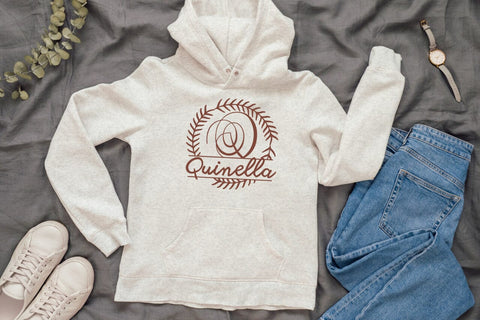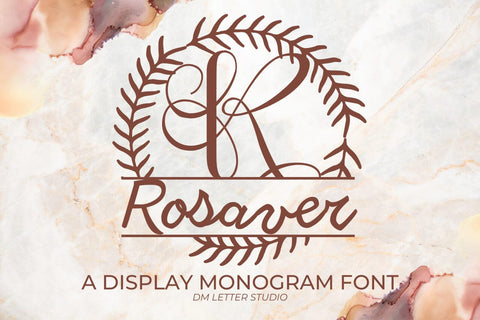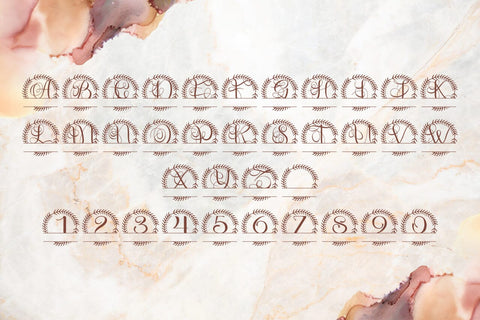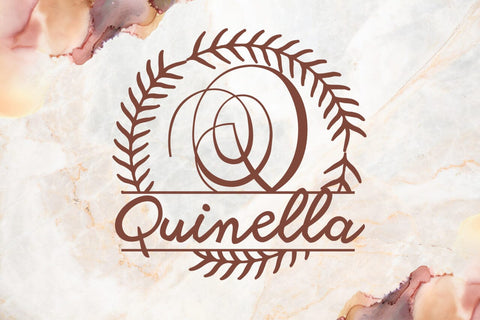
Rosaver Split Monogram Font
Meet Rosaver Split Monogram Font
Rosaver Split Monogram Font turns any initial into a romantic, name-ready emblem in seconds. The letterforms feel graceful and balanced, while a clean horizontal split creates space for names, dates, or short words. Because spacing stays even and counters remain open, designs look polished on tiny tags, door hangers, tumblers, ornaments, and wall art. Use it for wedding keepsakes, bridal party gifts, boutique packaging, and welcome signs. In addition, this split monogram font pairs beautifully with a simple sans or a light script, so every layout stays readable and premium.
Where this split monogram font shines
Set one elegant initial and place the family name inside the split for instant personalization. Next, try couple names for engagement gifts, venue names for signage, or short words like Home, Welcome, or Love for seasonal décor. Since proportions favor clarity, files scale smoothly for Cricut, Silhouette, Glowforge, and laser projects. As a result, you can batch customization for markets and storefronts without losing quality.
Design tips for Rosaver Split Monogram
Keep the hero initial large and let white space breathe. Place the split at center or slightly low for a calm baseline. Choose a clean secondary font inside the split to protect legibility on small items. Because the style is airy and romantic, metallic foils, textured stocks, and natural woods add instant value. However, keep names concise so the composition stays balanced at thumbnail size.
Uppercase alphabet optimized for split monograms
Matching lowercase, numbers, punctuation
Curves tuned for engraving, foil, laser cutting, and clean vinyl paths
Why makers choose this split monogram font
You want fast personalization that still feels bespoke. Rosaver Split Monogram Font delivers consistent, high-end name designs in minutes while keeping your shop’s visual language cohesive across many product types.